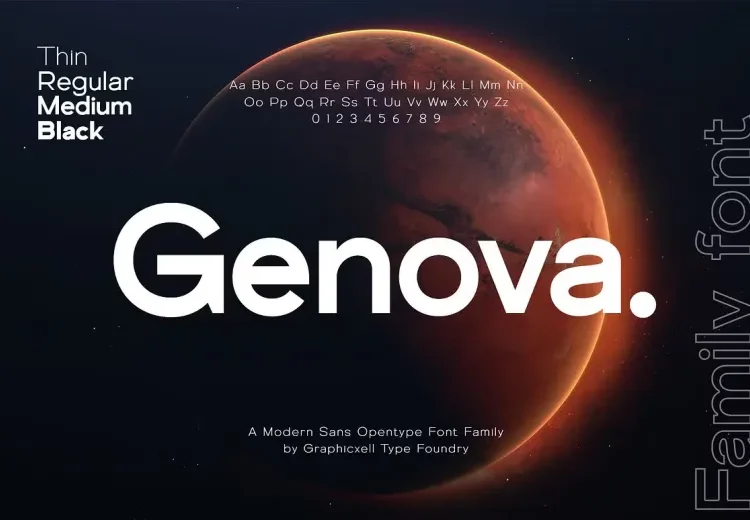
Genova Font
Genova is an elegant sans serif type family that offers versatility and style across its four variants: Thin, Regular, Medium, and Black. Designed for branding, logotypes, printing, and other applications requiring detailed typography, Genova delivers a modern and attractive aesthetic.
Meticulously crafted with geometric precision, Genova ensures a balanced and accessible design. Its clean lines and refined appearance make it a sought-after font for a wide range of uses, anticipated to become a favorite choice for users globally by 2023.